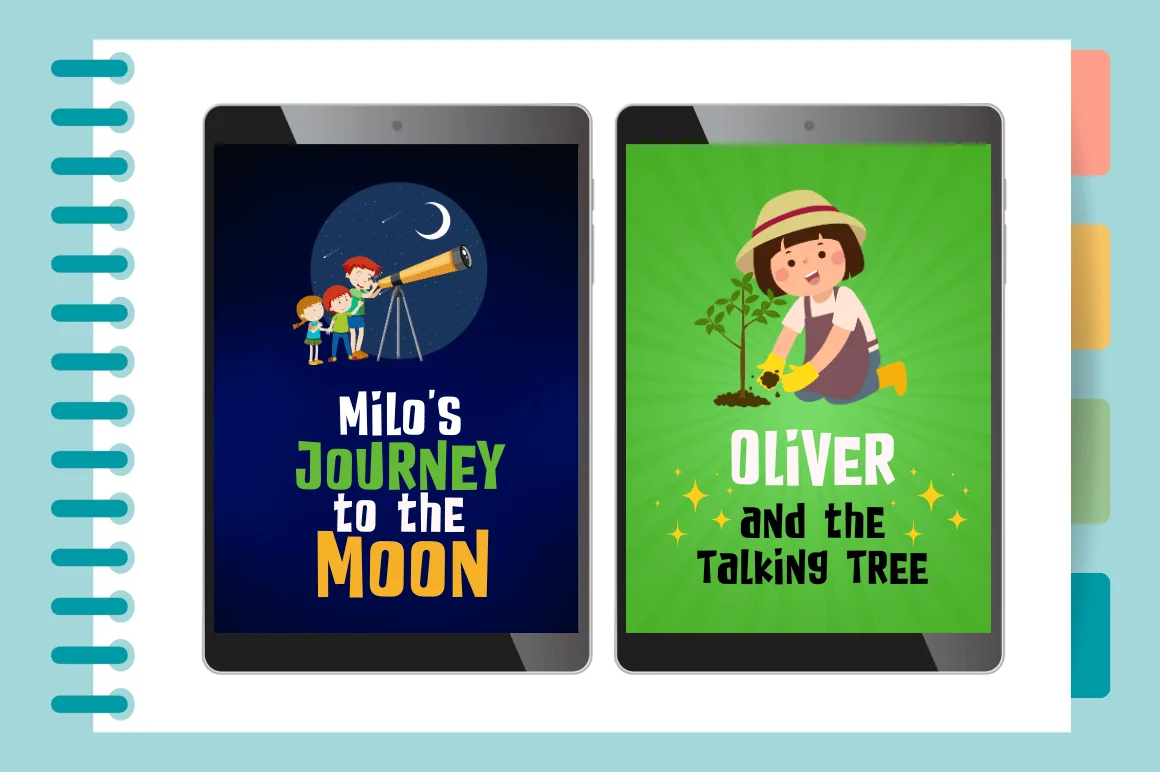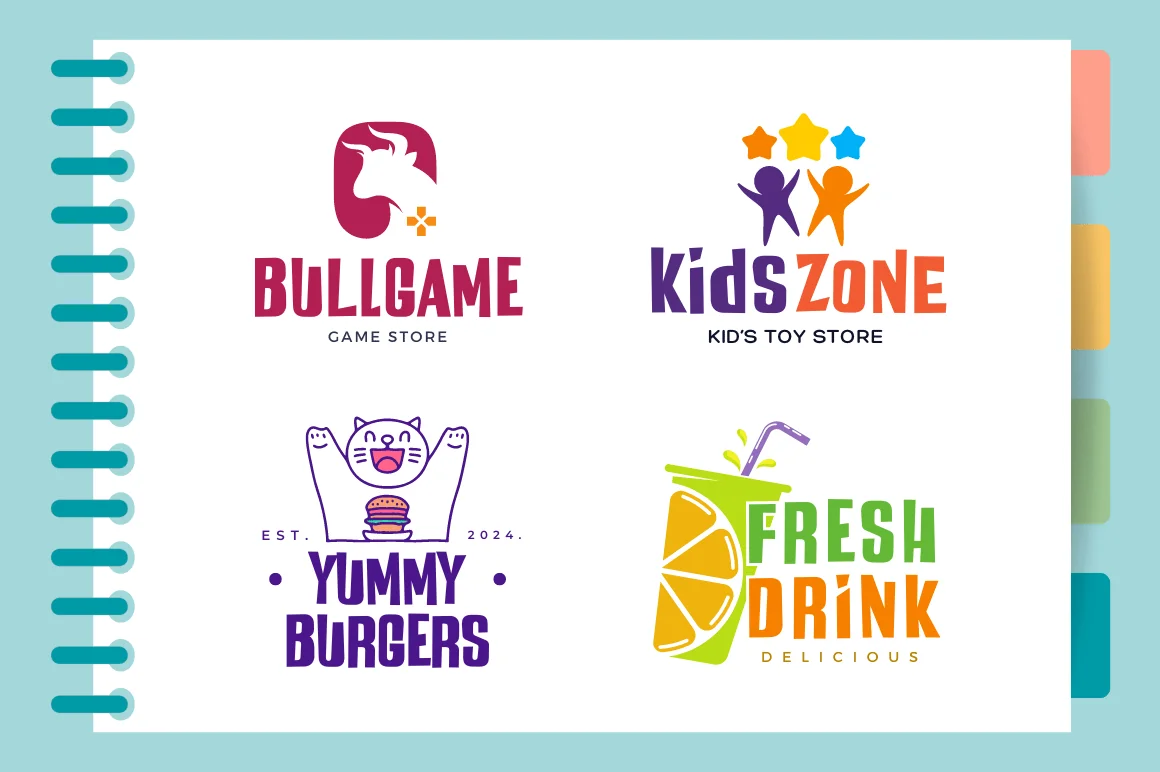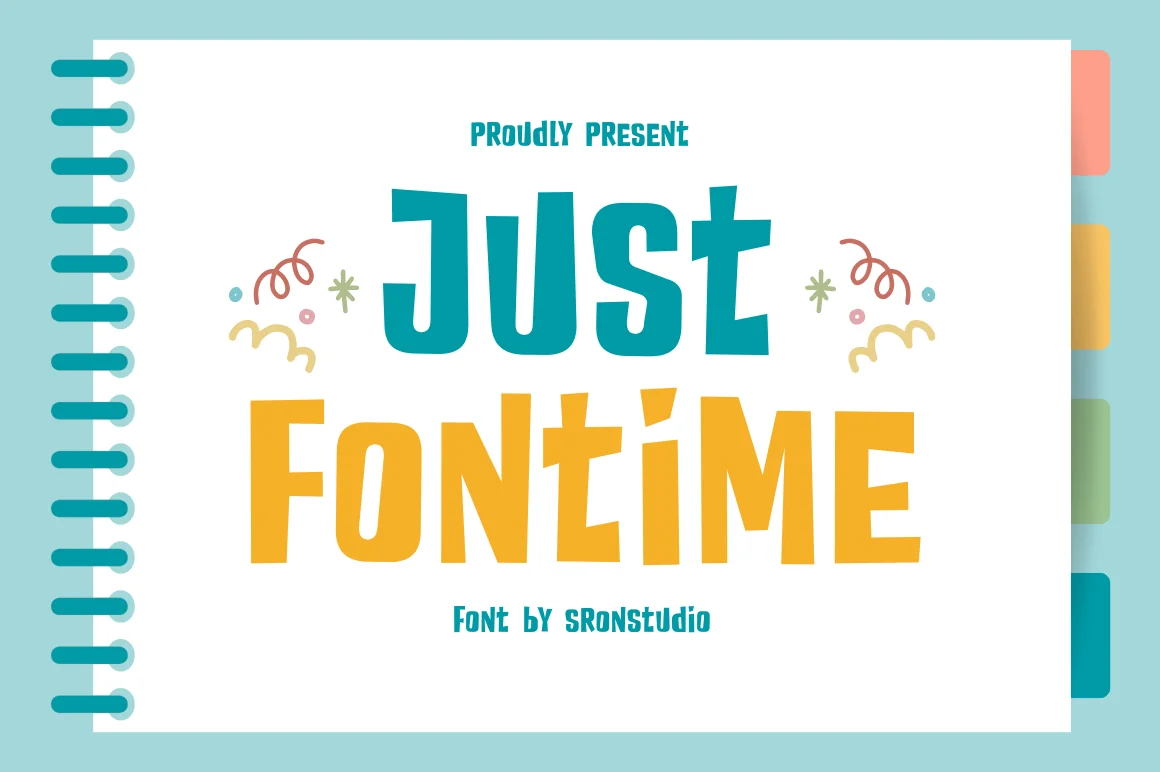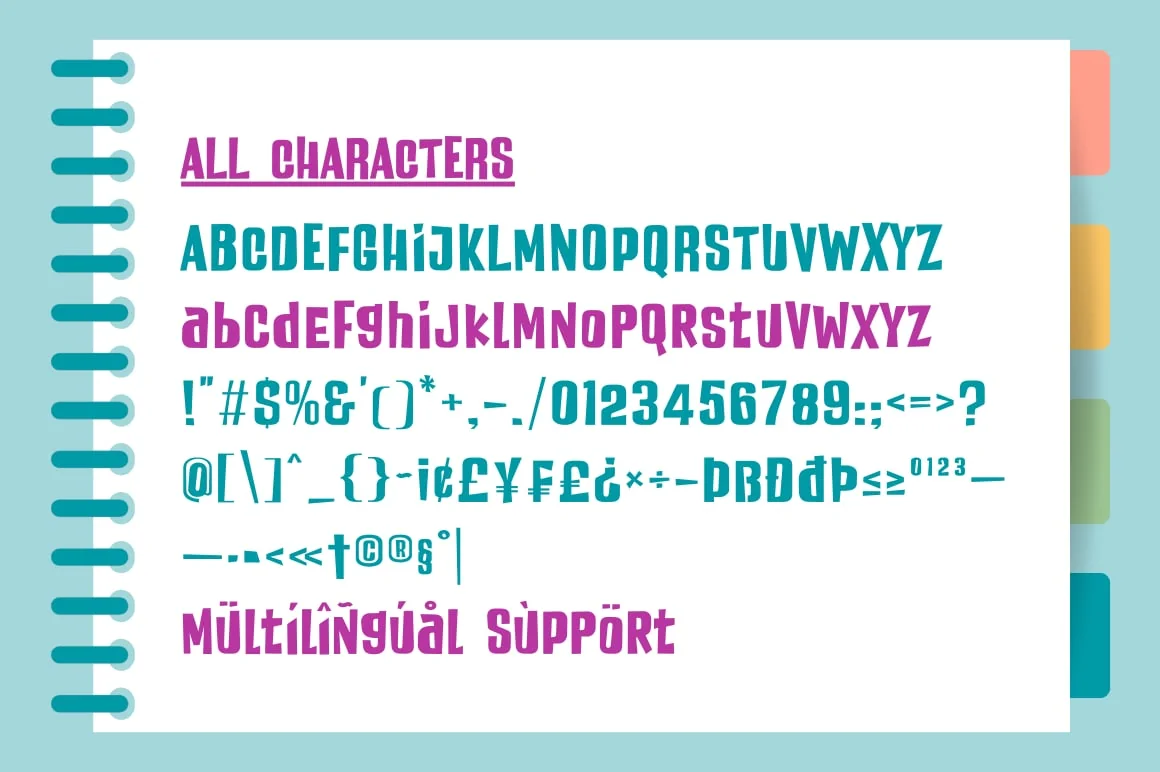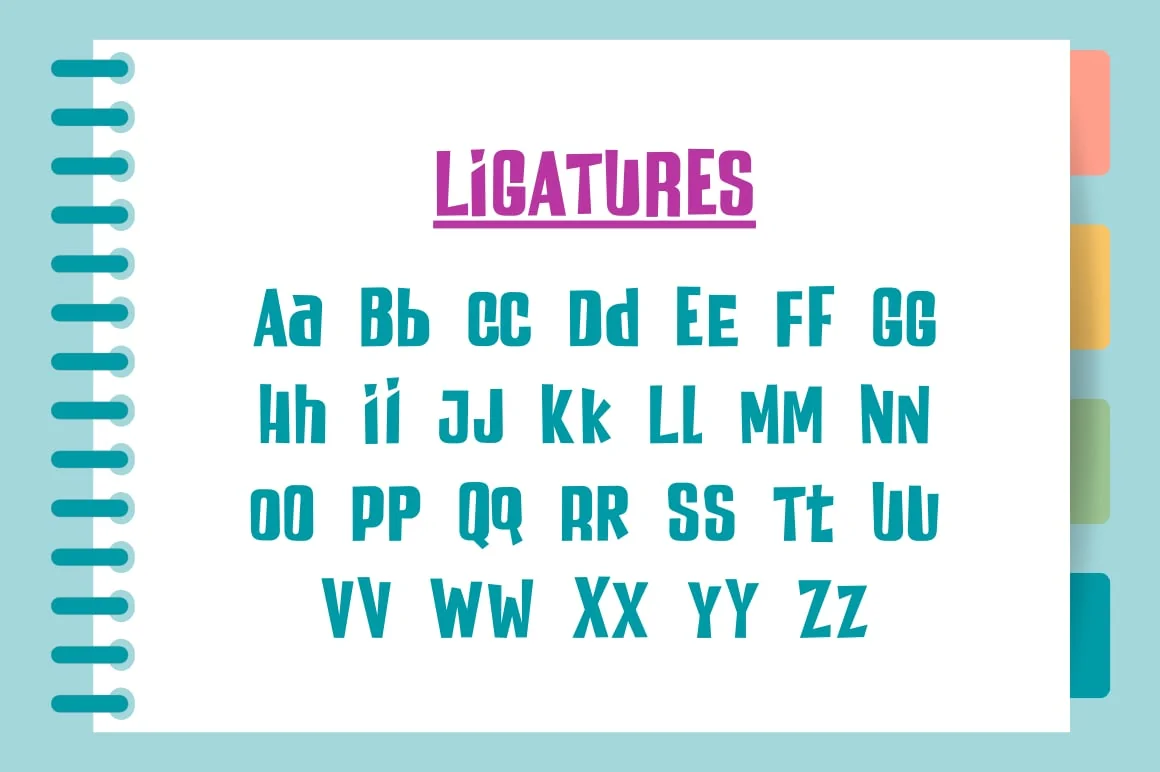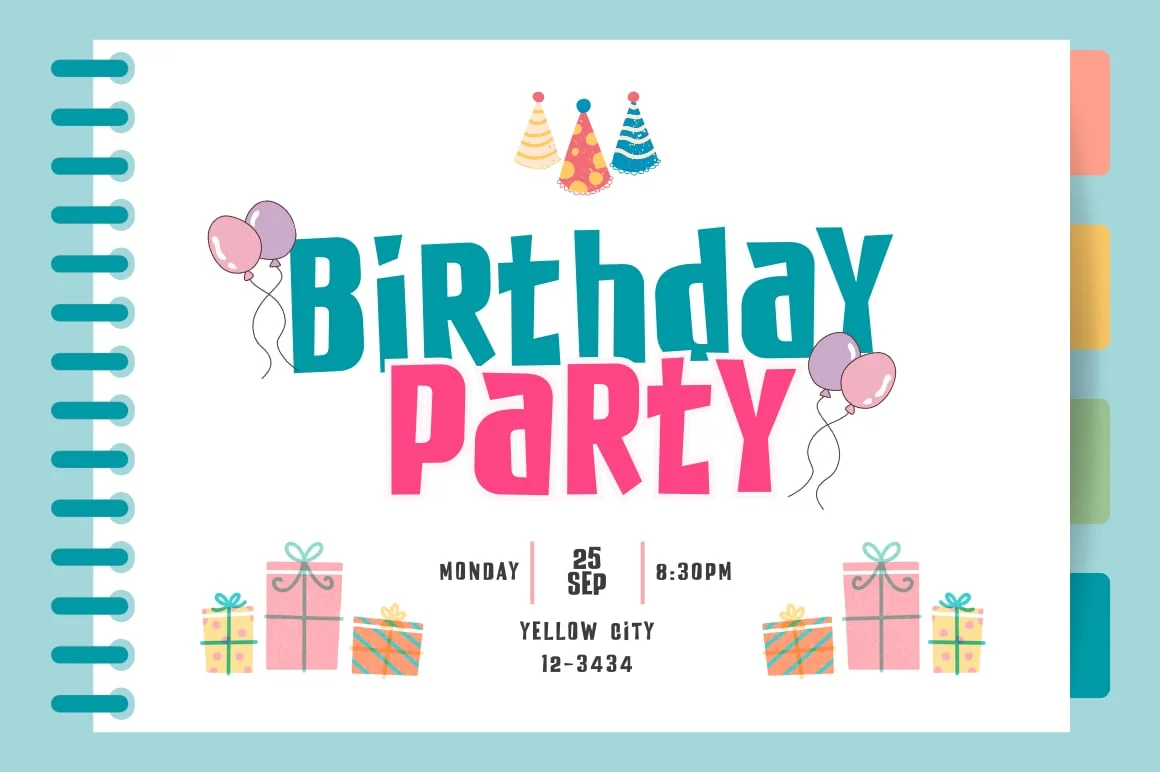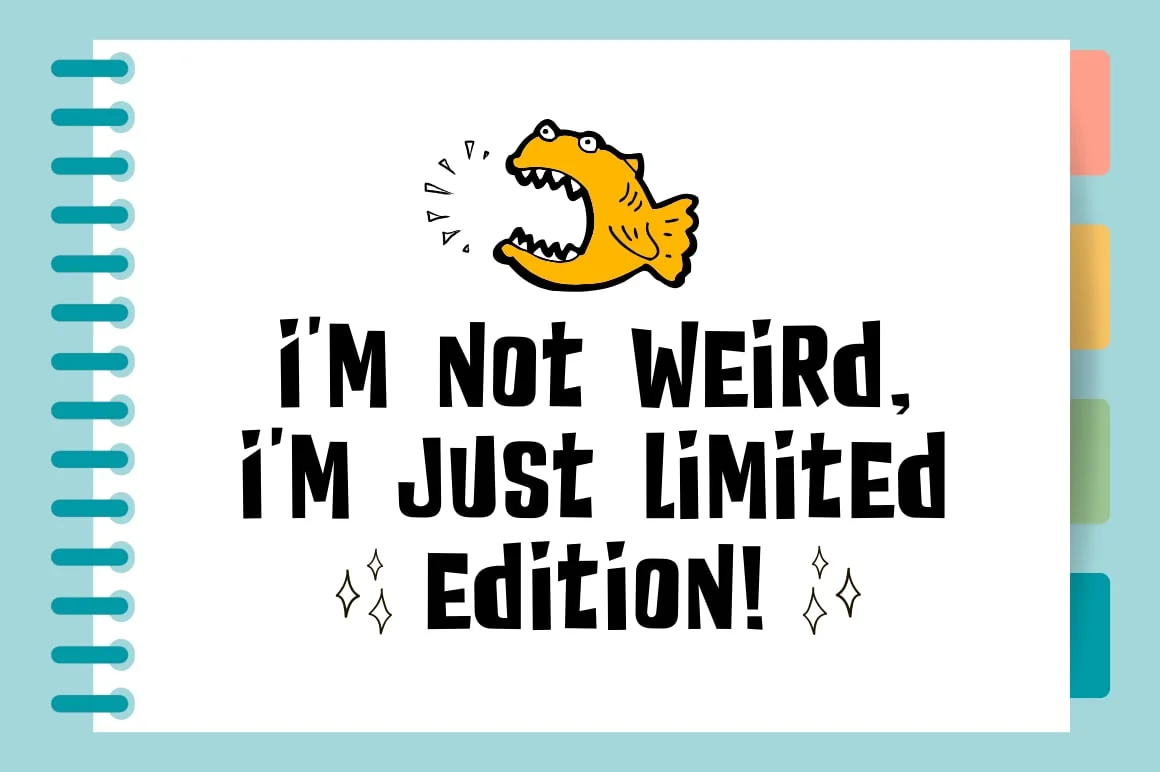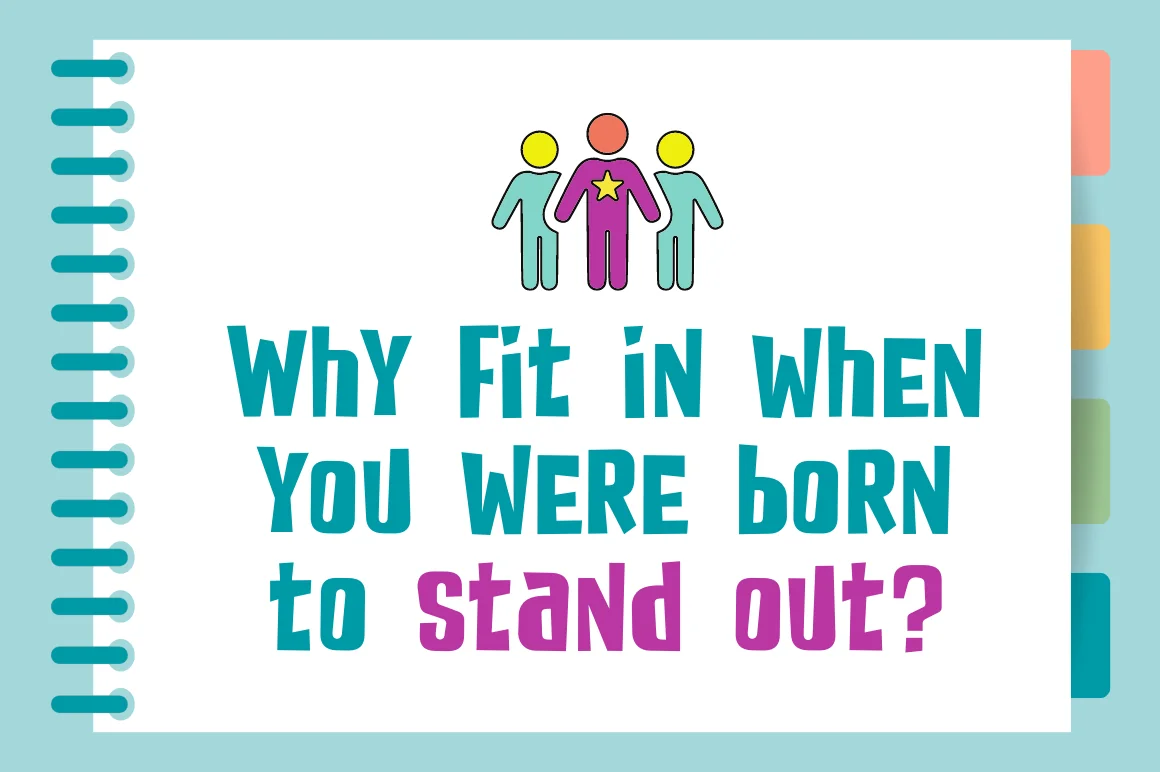
Just Fontime – Cartoon Font
Just Fontime is a bold and playful font that brings fun and energy to your designs. With its chunky, rounded letters and lively character, this font is perfect for projects that need a cheerful and creative touch. Ideal for posters, kids’ designs, product packaging, and playful branding, Just Fontime makes every word pop with personality and charm. Add a dash of fun to your work with this bold, delightful typeface!